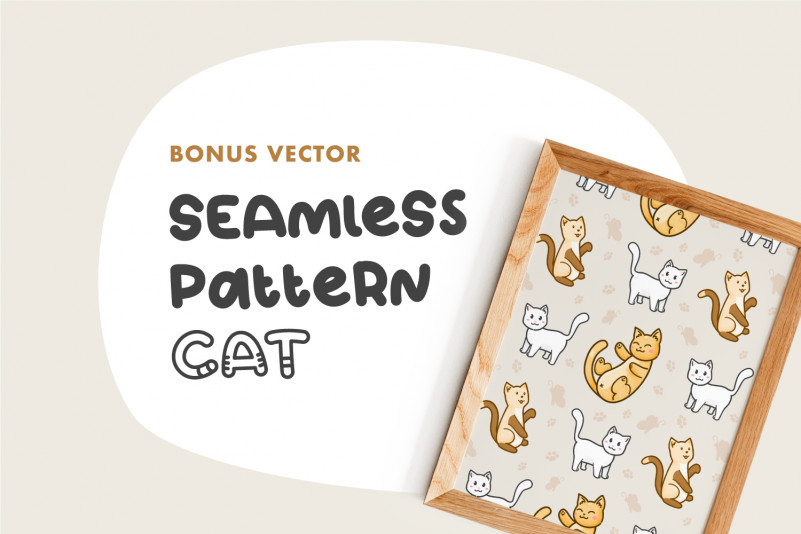
Katto Outlined Font
Katto Outlined Display Font
This is a cute and friendly display font. It embodies playfulness and authenticity and is the perfect choice for any children activity or school project.